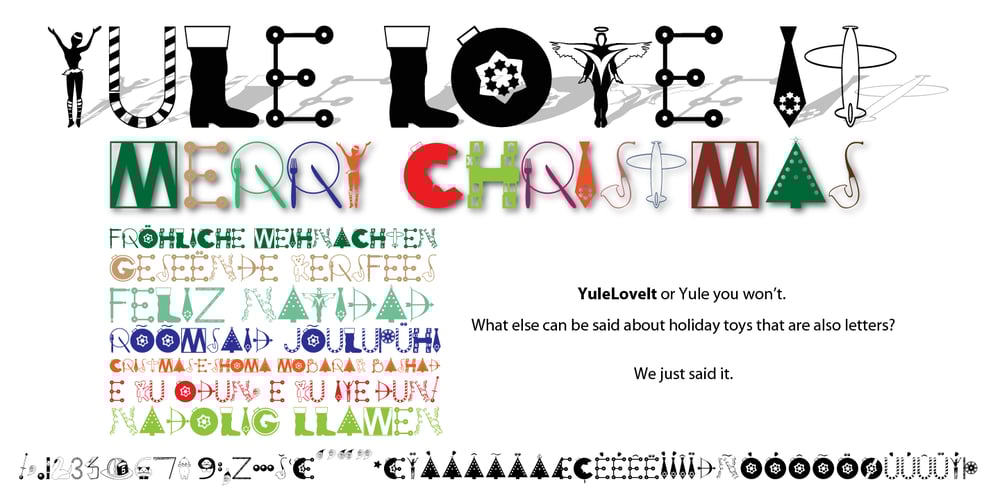
Yule Love It
Yule Love It font
Yule Love It Font Family was designed by Randy Harris and published by Just My Type. Yule Love It contains 1 styles and family package options. YuleLoveIt or Yule not. What else can be said about holiday toys that are also letters? We just said it.